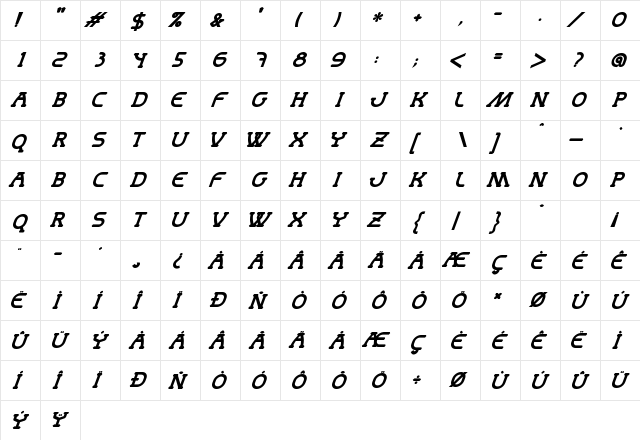
MastumBoldItalic Regular
| Foundry | Xerographer Fonts |
| Designer | Max Infeld - Xerographer Fonts |
Design Context for MastumBoldItalic Typeface
MastumBoldItalic offers clean, dependable letterforms without strong stylistic allegiance, making it a practical choice for designers who need flexibility. The slanted form adds forward momentum and visual energy. The heavy weight commands attention and anchors typographic hierarchies.